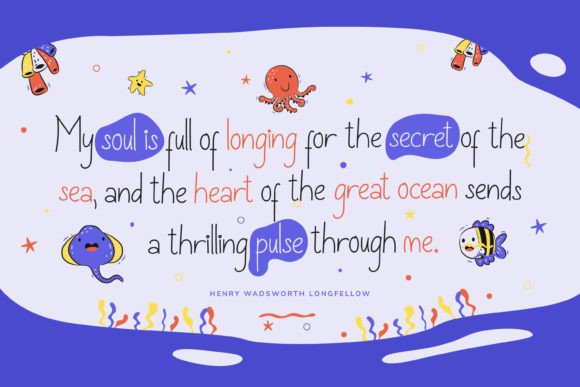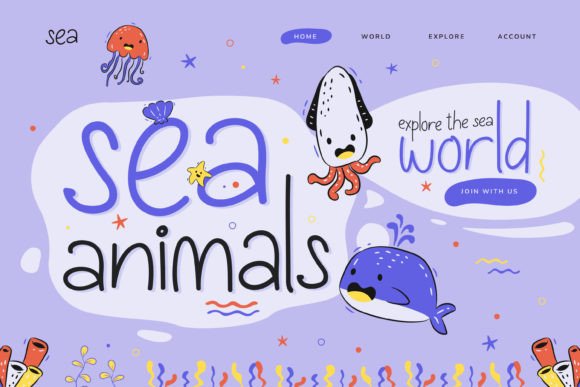
About Marinelle
Marinelle is a delicate and flowing handwritten font. It has beautiful and well-balanced characters and as a result, it matches a wide pool of designs.